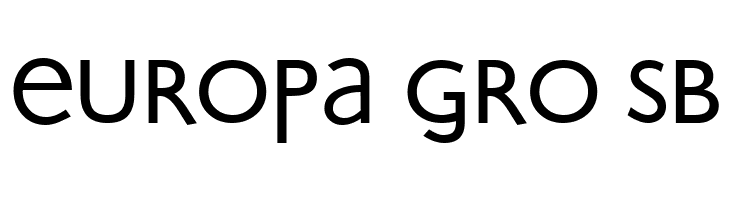
A modern, geometric sans-serif font with uniform width and clean lines.
A sleek, ultra-thin font with a modern and minimalist design.
An ultra-thin, minimalist font with a modern, geometric style.
A bold, rounded sans-serif font with smooth curves and thick strokes.
A bold, artistic font with swirling patterns and dynamic curves.
A playful, whimsical font with rounded terminals and dot accents.
A bold, modern font with a strong, slightly condensed design.
( Dysa is a Sephraxian Support font. This font can be both used for ornate logo design and whiteboard-inspired art, or also for giving your next hobby project something that makes your friends go mad and zany. )
A playful, hand-drawn font with thin, irregular strokes and a whimsical style.
A flowing, cursive font with elegant loops and a handwritten style.
A playful, handwritten font with dynamic and fluid strokes.
A decorative and geometric font with intricate uppercase and clean lowercase characters.
A playful, bold font with rounded, thick strokes and a whimsical touch.
A playful, hand-drawn font with bold, rounded outlines.
A whimsical font with unicorn and magical motifs, perfect for fantasy themes.
An eclectic and artistic display font with diverse, whimsical character designs.
A decorative, mail art-inspired graphic and text stamp collection with varied styles.
A playful, handwritten font with bold strokes and a casual style.
An elegant script font with flowing, intricate loops and flourishes.
A bold, geometric font with a futuristic and modern design.
An elegant and flowing script font with intricate loops and swashes.
A modern, outlined font with geometric and futuristic elements.
An elegant and flowing script font with ornate uppercase and smooth lowercase letters.
A bold, vintage-inspired font with strong, angular serifs and uniform height.
A bold, slab serif font with a strong, modern presence.